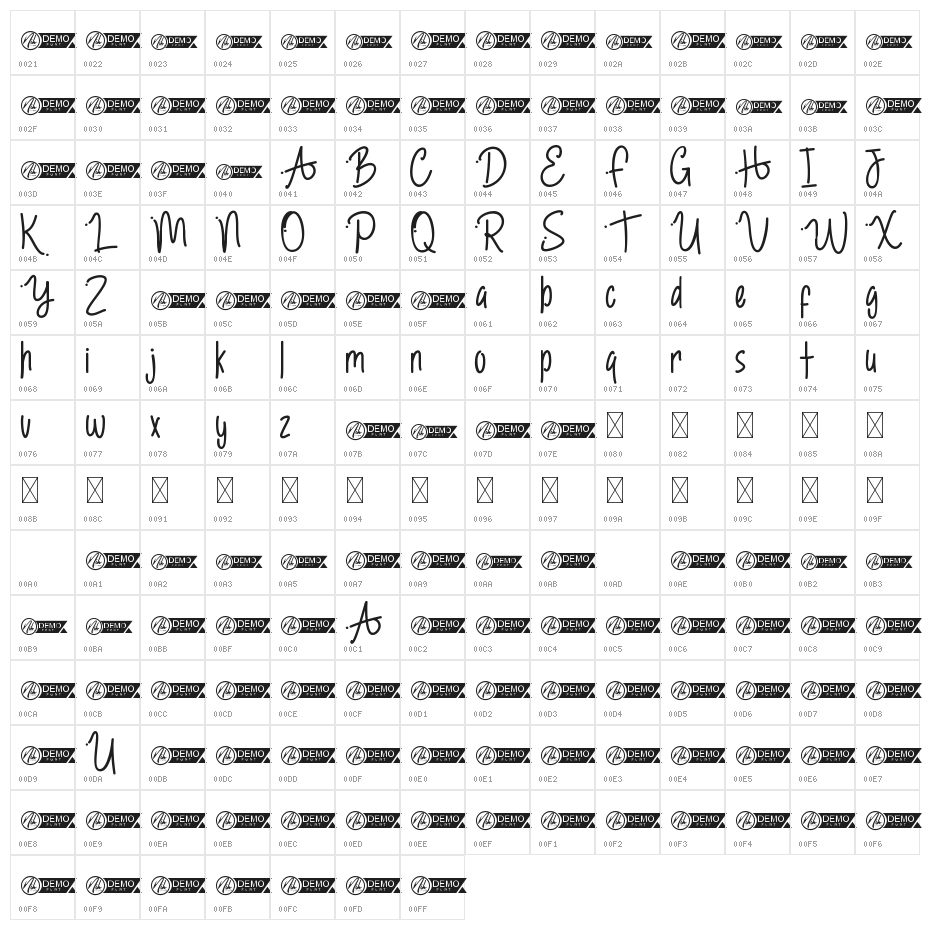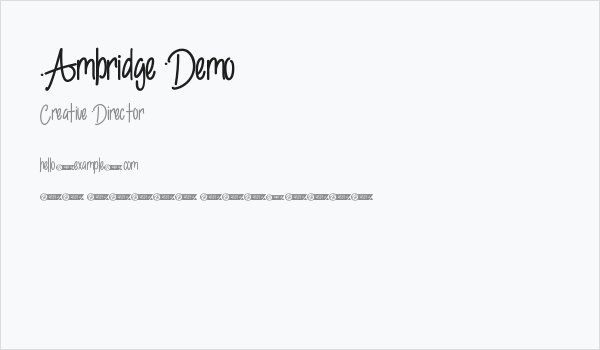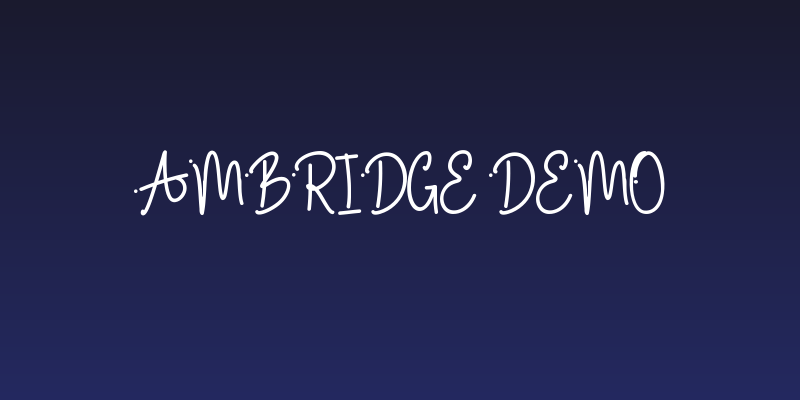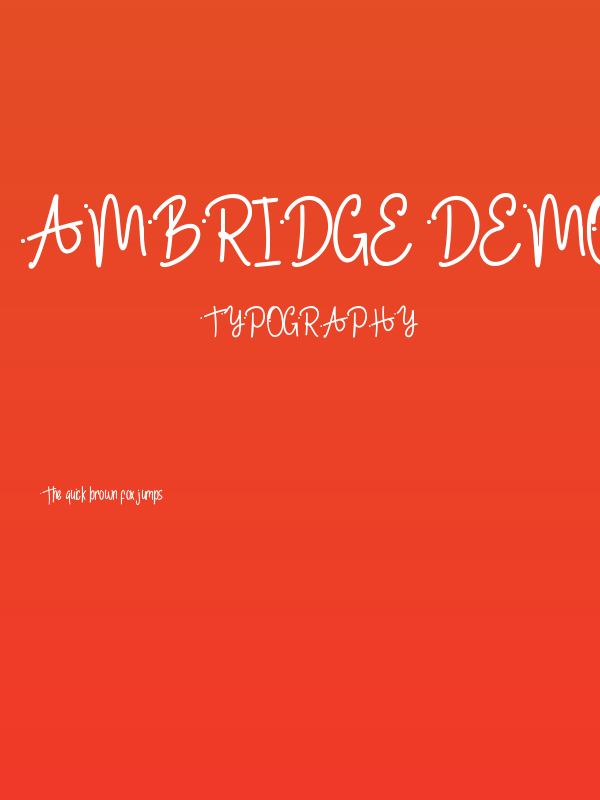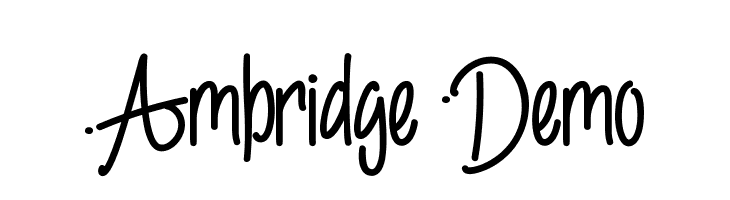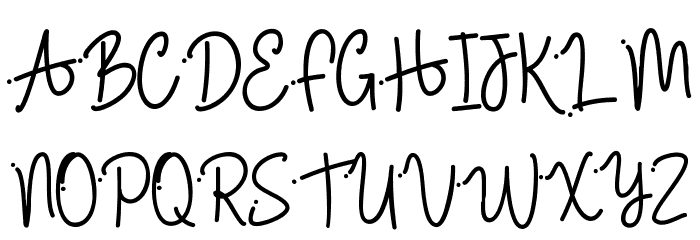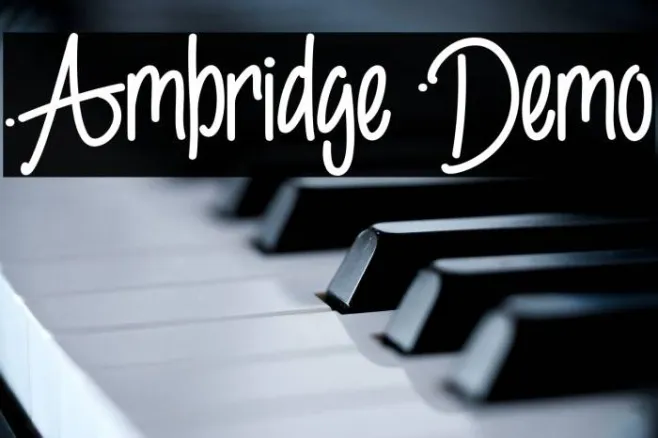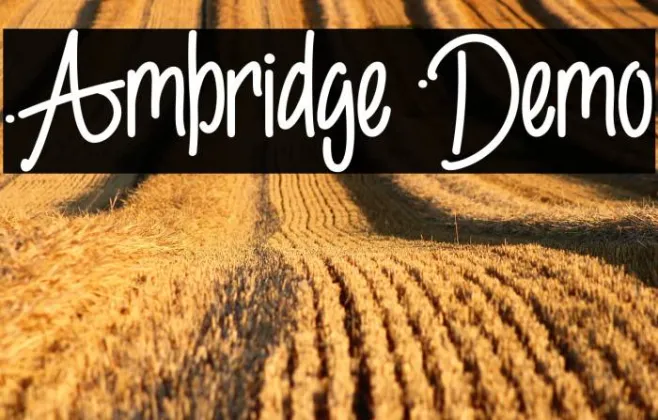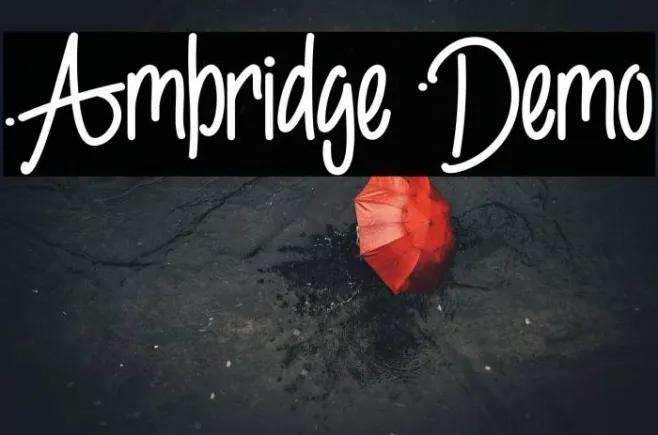
Ambridge Demo Font
Ambridge Demo Description
A playful, handwritten font with a casual and friendly appearance, featuring rounded edges and a slightly irregular baseline.
| Overall Style | Playful, Casual |
| Use Case | Headlines, Informal text |
| Proposed Projects | Greeting cards, children's books, informal invitations. |